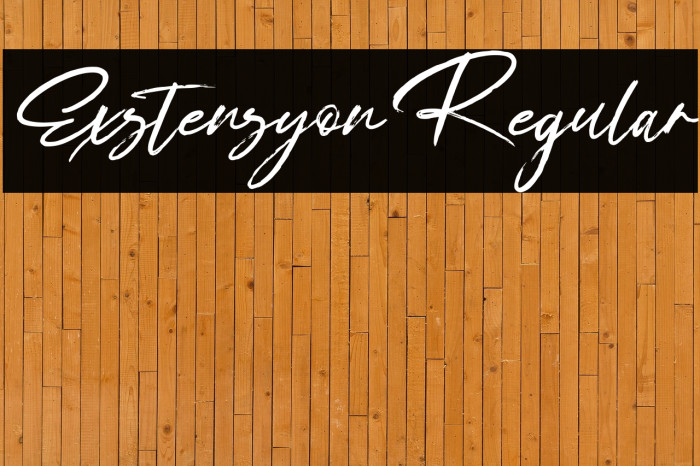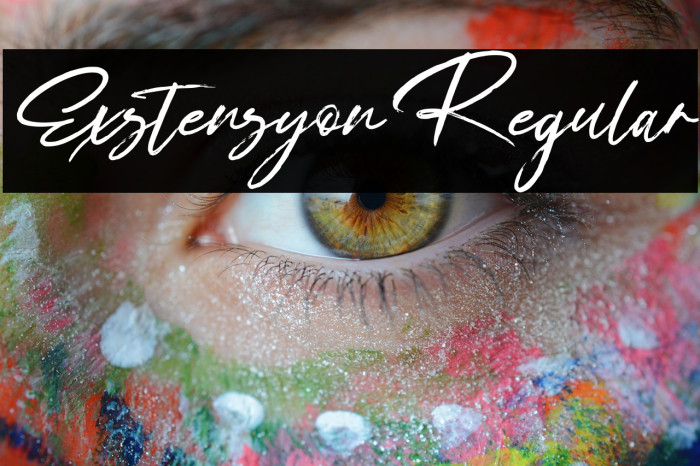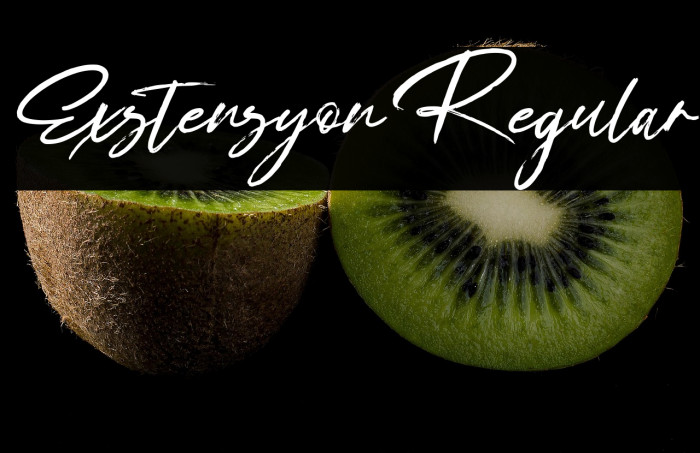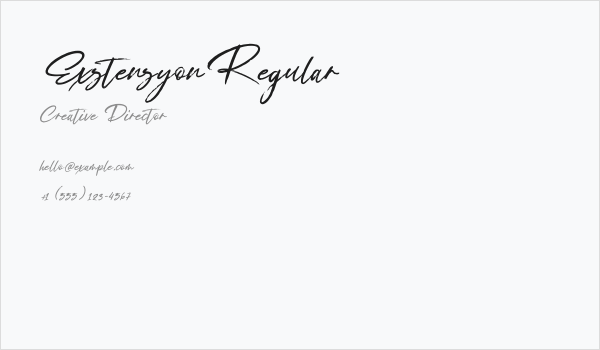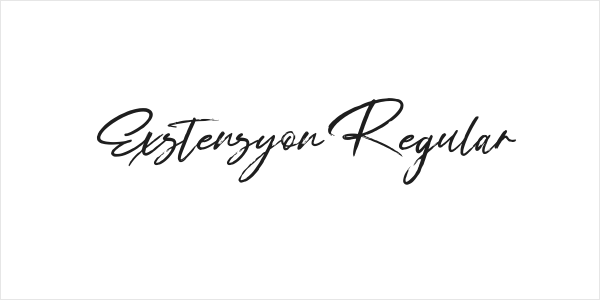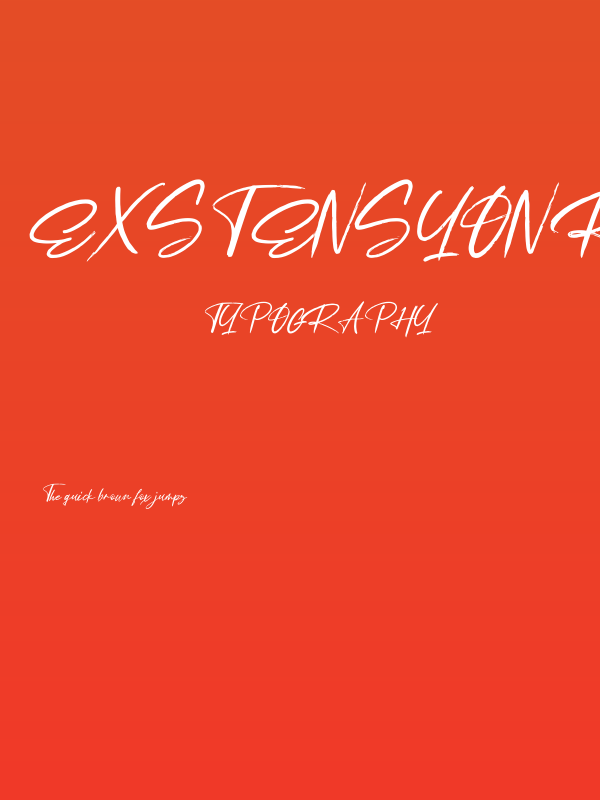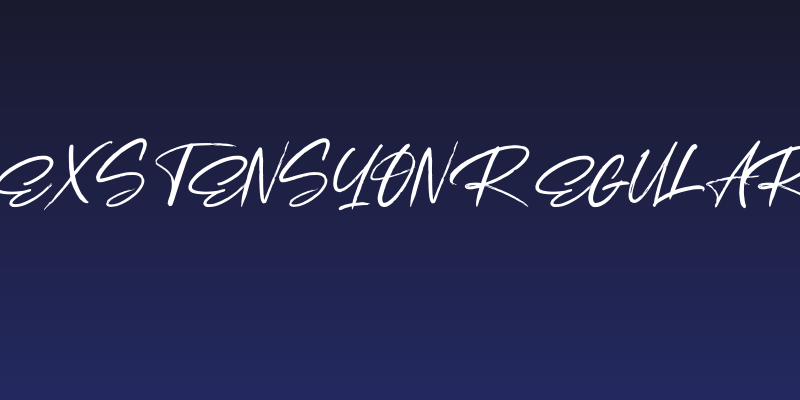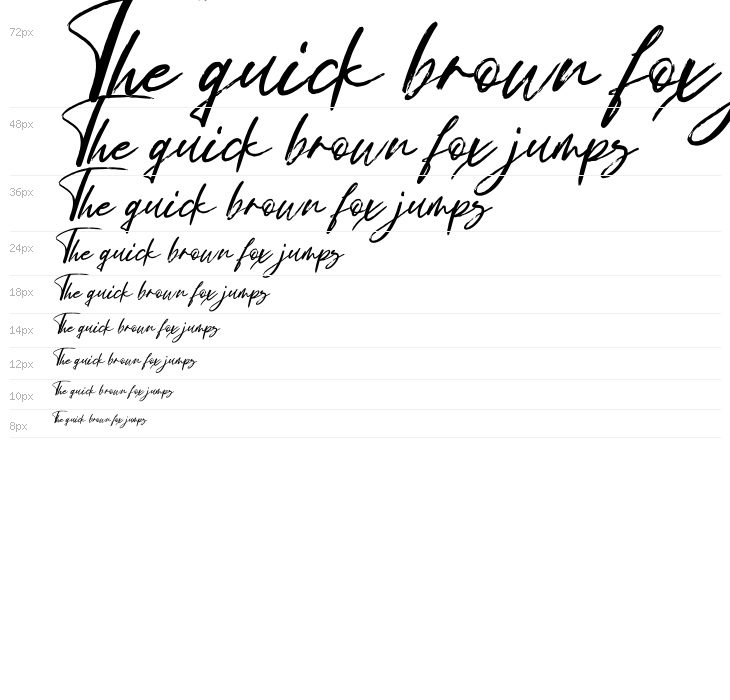
Exstensyon Regular Font
Exstensyon Regular Description
This font features a dynamic and expressive handwritten style, characterized by its fluid and energetic strokes. The letters are crafted with a sense of motion, giving them a lively and spontaneous appearance. The uppercase and lowercase letters maintain a consistent style, with some letters having unique flourishes that add to the overall aesthetic. The numerals and special characters follow the same energetic design, making the font versatile for various creative applications. The brush-like texture of the strokes adds a personal and artistic touch, making it ideal for projects that require a human element.
| Use Case | Logos, Headlines, Invitations |
| Proposed Projects | Ideal for branding, invitations, posters, and any project that benefits from a personal, artistic touch. |